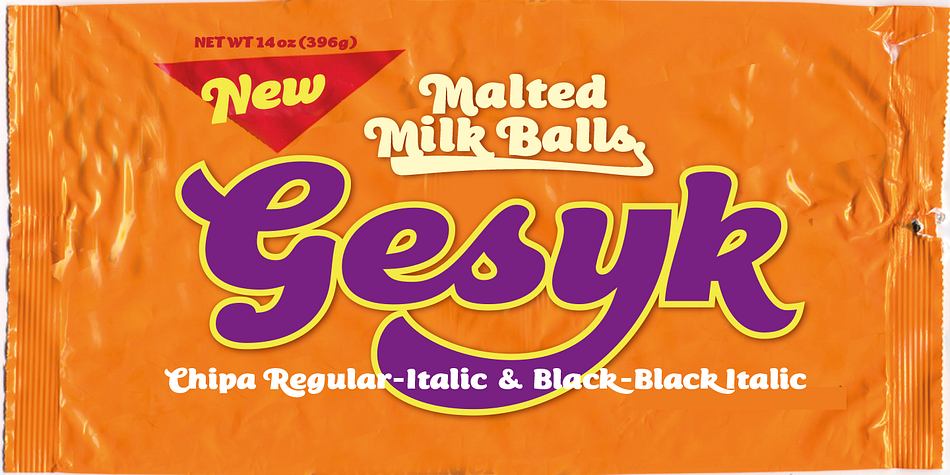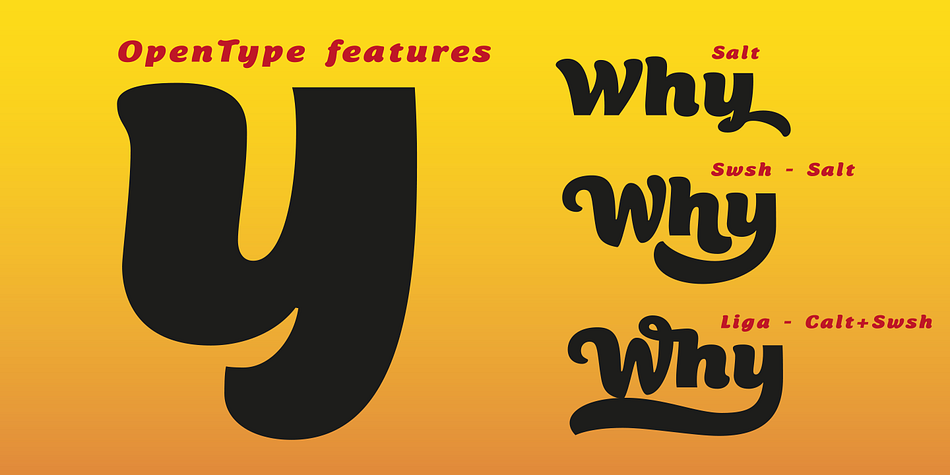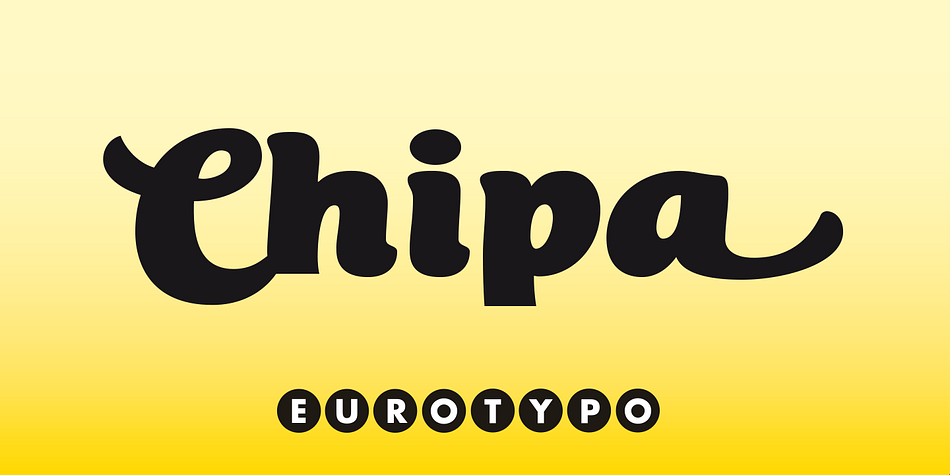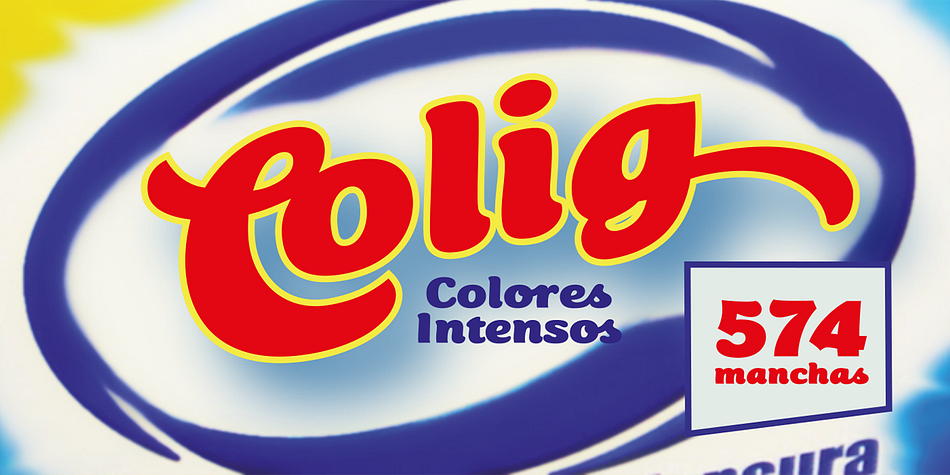
Designed by Olcar Alcaide, Chipa is a brush script font family. This typeface has four styles and was published by Eurotypo.
Chipa is a font organic, expressive, plumpy with soft curves. It has all the advantages of OpenType technology that allows a variety of combinations: Swashes, old style numerals, standard ligatures, contextual alternates, discretional ligatures, word ending and tails. These fonts were specially designed for creating logotypes and packaging design, can also be used in advertising, flyers and posters, for its good legibility and accurate kerning.
Chipa support the Central European character set as well as basic Western languages.